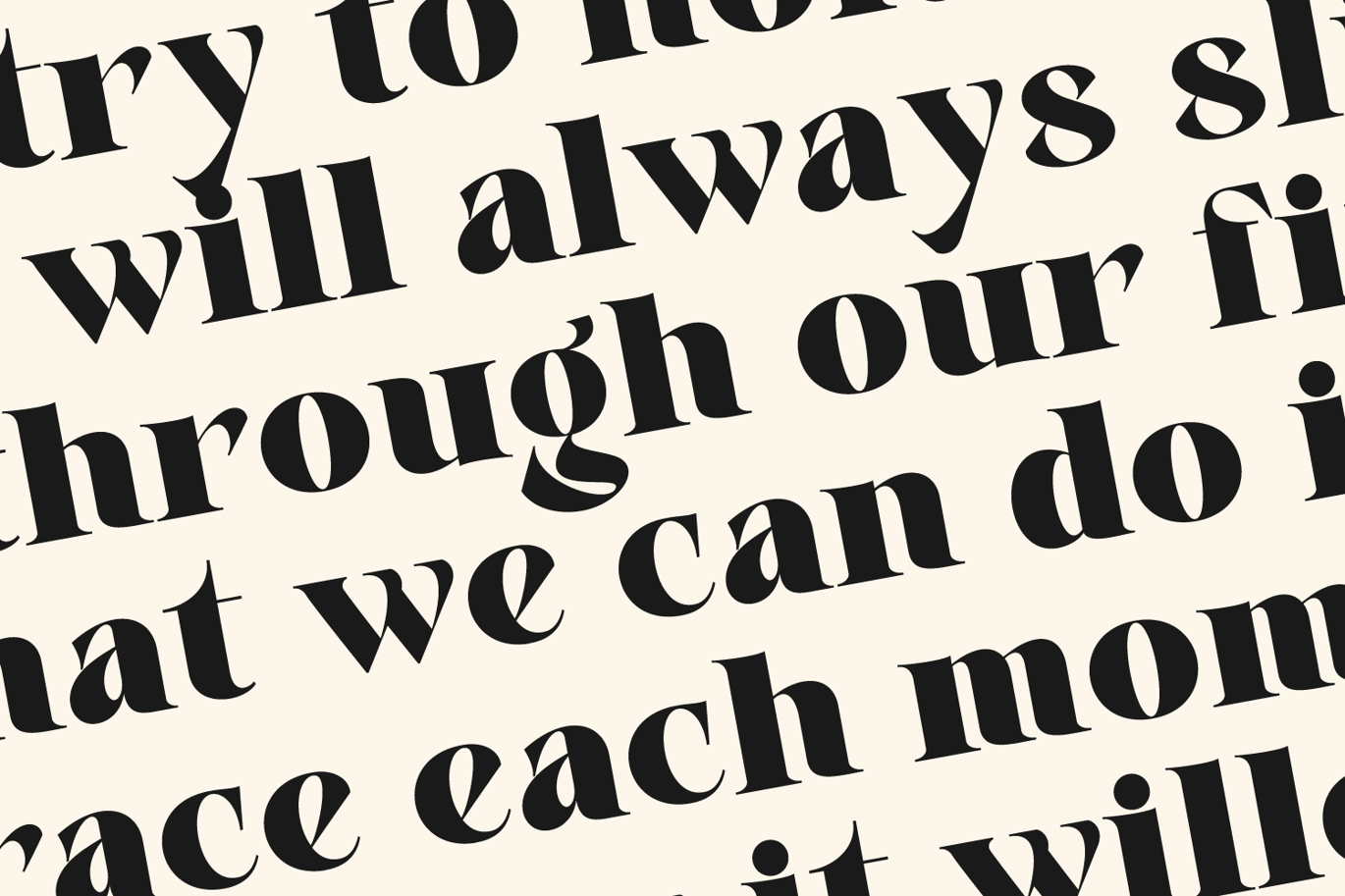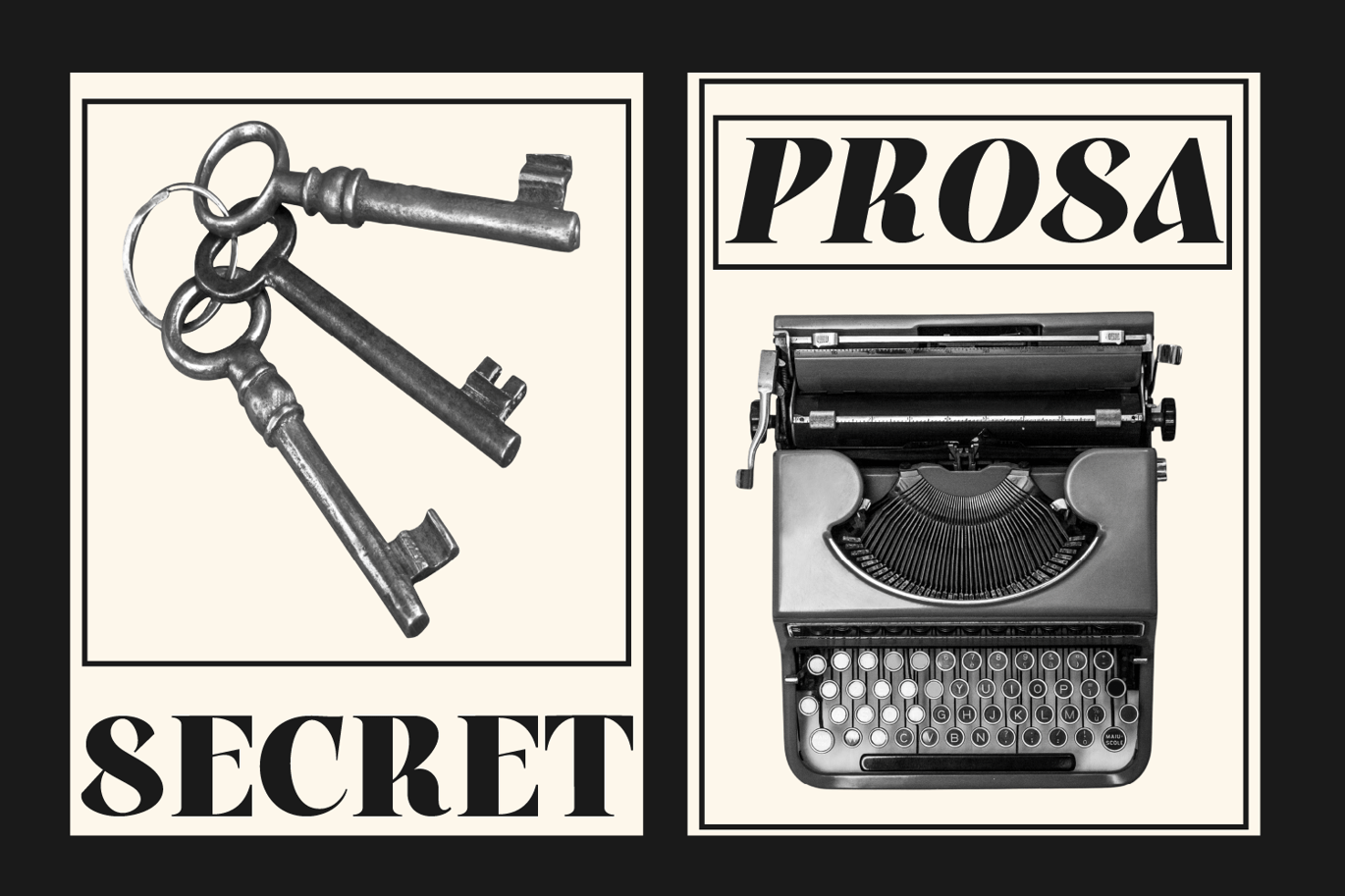
Aver Magera – Modern Serif Font
Aver Magera – Modern Serif Font is a versatile typeface ideal for various projects, including logos, branding, posters, blog headers, advertisements. The free version includes a full set of uppercase and lowercase letters, available in OTF format.